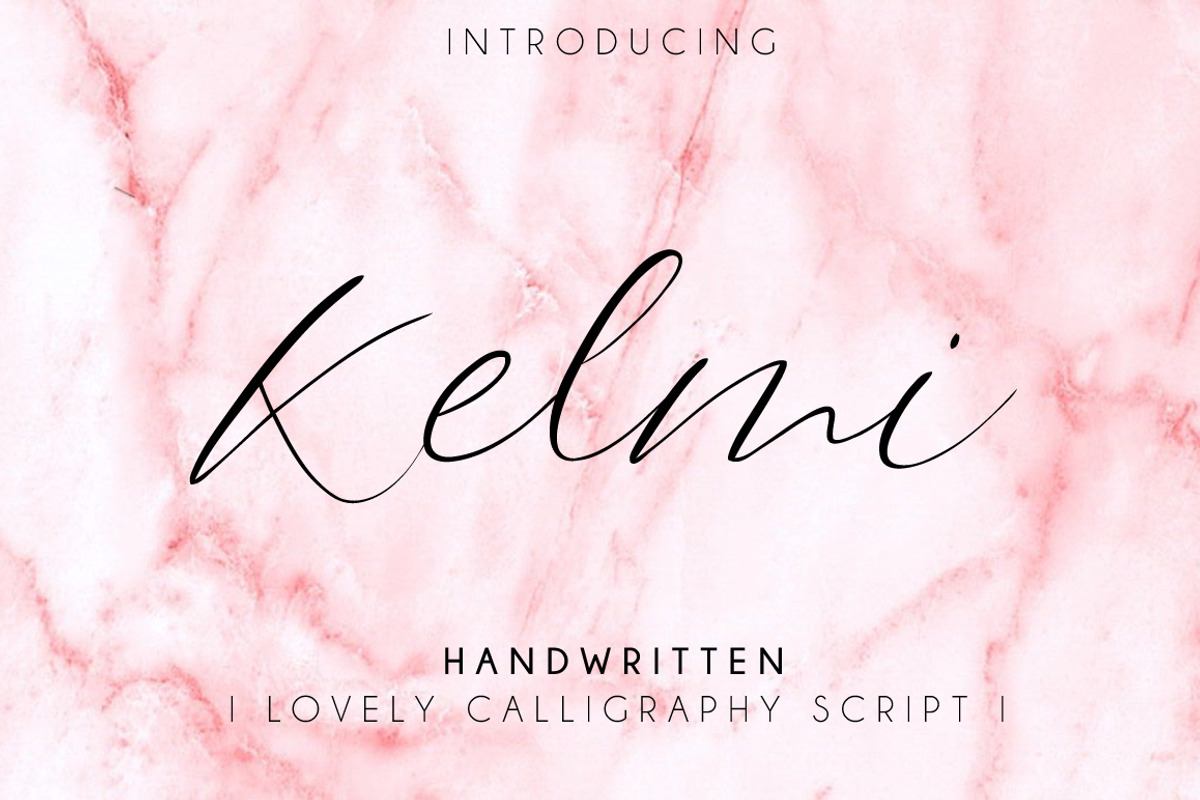
Add a personal, handwritten charm to your projects with Kelmi Font Free Download. This elegant script font features smooth curves and natural flow, making it a beautiful choice for branding, invitations, social media graphics, packaging, and anything that needs a soft, human touch.
Kelmi combines simplicity with sophistication, offering legibility without sacrificing style. Whether you're crafting a romantic message or a stylish logo, this font adds a unique, authentic flair to your design work.